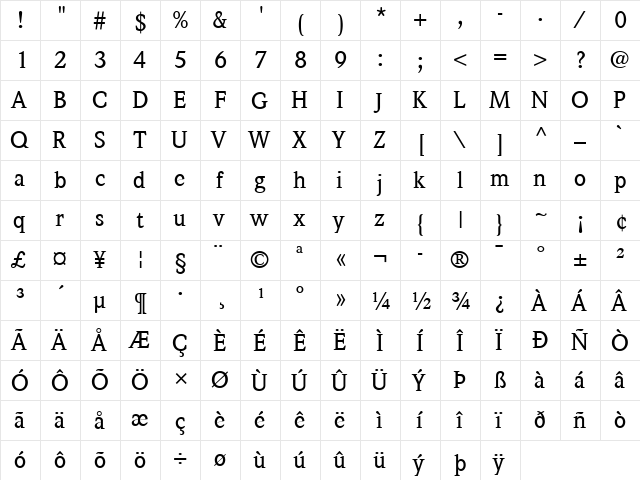
Weidemann LT Medium Regular Font Preview
Weidemann LT Medium Regular
Weidemann LT Medium Regular Font Details
Design Context for Weidemann LT Medium Typeface
Weidemann LT Medium offers clean, dependable letterforms without strong stylistic allegiance, making it a practical choice for designers who need flexibility. Its slender proportions lend an understated elegance to any composition.